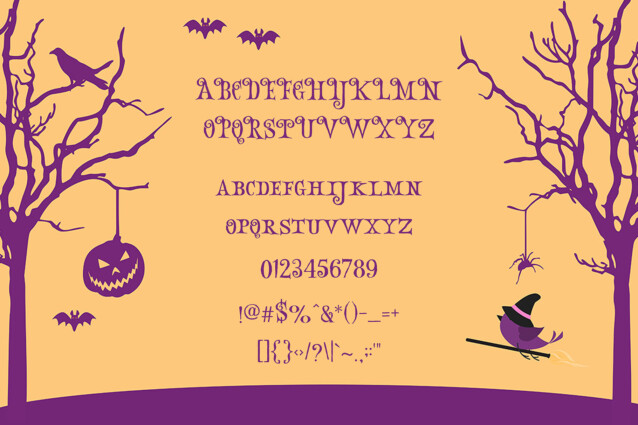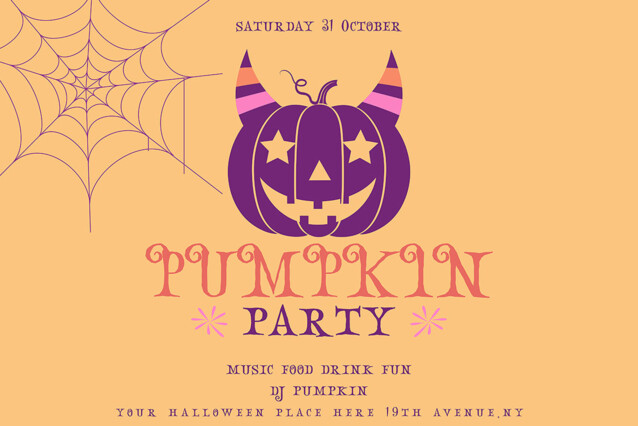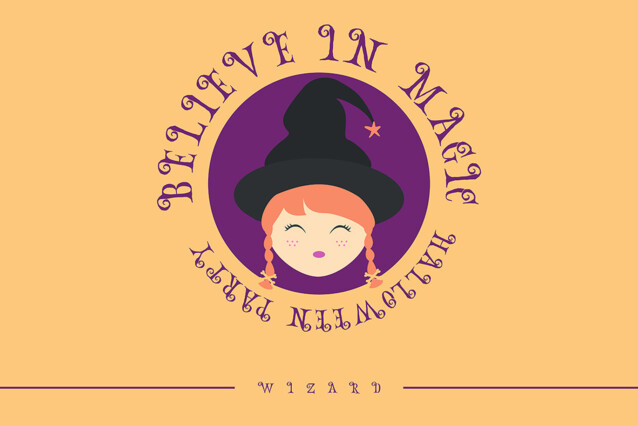
Gobline Font is a simple and decorative font. So perfect for you who needs a typeface for logo designs, magazine, social media, brochure, and many more.